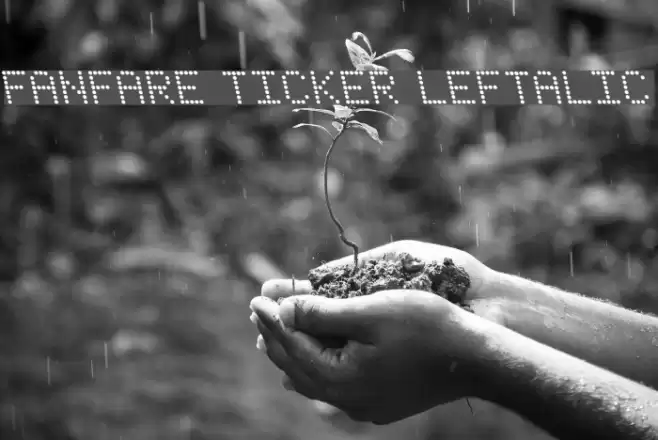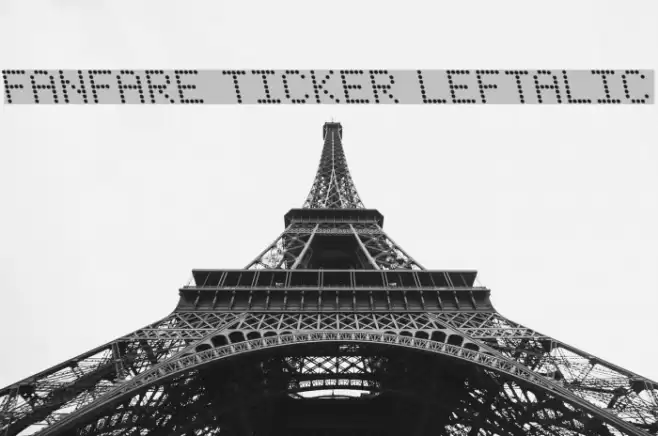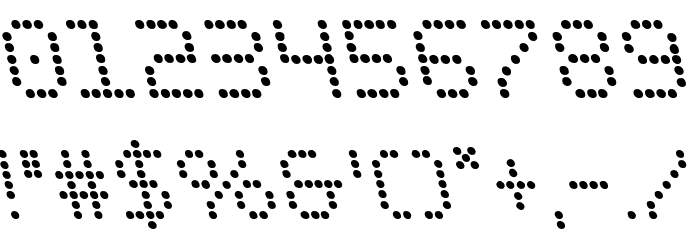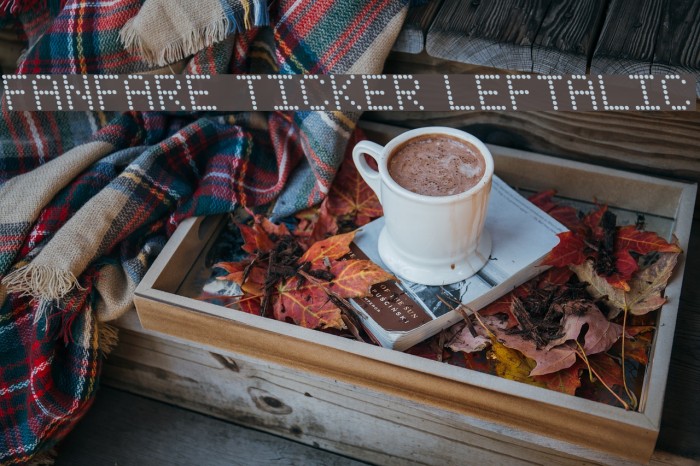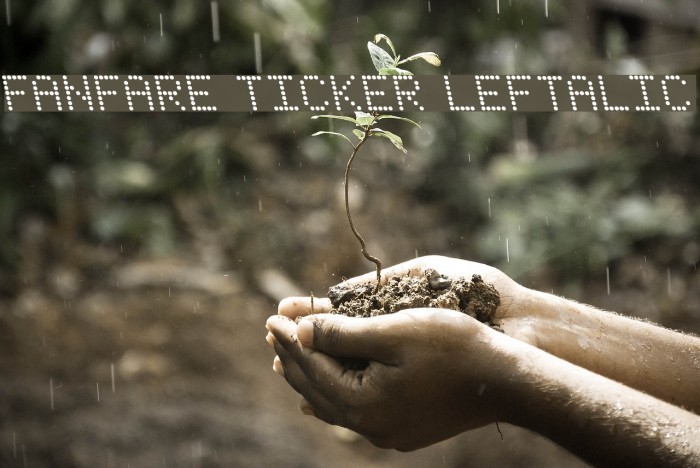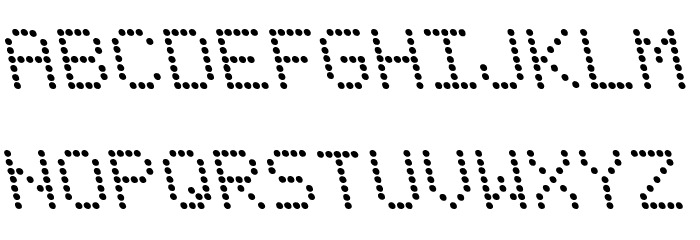
Fanfare Ticker Leftalic Font
Fanfare Ticker Leftalic Description
This font features a unique design composed entirely of dots, creating a digital and modern appearance reminiscent of LED displays or ticker tapes. Each character is formed by a grid of evenly spaced dots, providing a consistent and structured look. The font maintains a uniform size across all characters, ensuring readability while adding a playful and futuristic touch. Its geometric nature makes it ideal for conveying information in a clear and concise manner, suitable for both digital and print media.
A dot-based, digital-style font with a modern, structured appearance from Uncategorized fonts.
- Proposed Projects: Ideal for digital displays, tech-themed designs, modern posters, and innovative branding projects.
- Use Case: Headlines, Logos, Digital displays